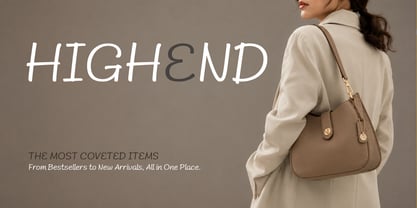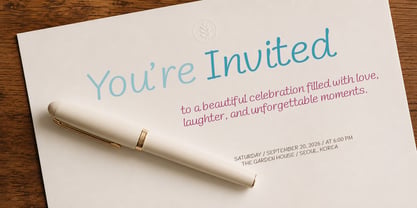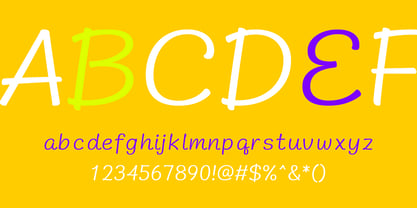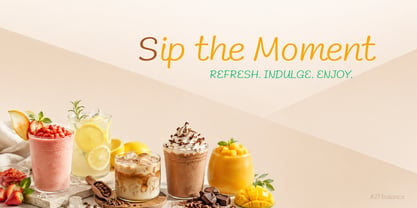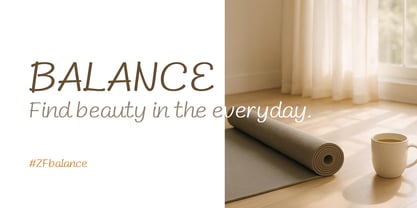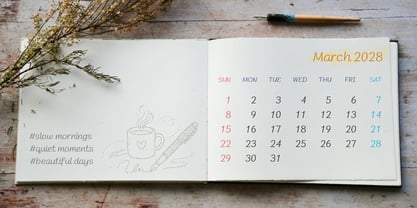
ZFbalance
von ZooFont
Die Schriftfamilie ZFbalance wurde von joo-hong Kim entworfen und von ZooFont veröffentlicht. ZFbalance enthält 1 Stile. Mehr über diese Familie
Balance is a warm and versatile handwritten typeface that combines the natural charm of handwriting with a calm, balanced rhythm.
Its smooth, flowing strokes and carefully balanced letterforms create a relaxed reading experience while maintaining a distinctly personal character.
Designed to feel natural rather than overly decorative, Balance works beautifully for branding, logos, stationery, invitations, packaging, social media, editorial design, and lifestyle projects.
Warm, balanced, and effortlessly handwritten — Balance brings a human touch to every word.